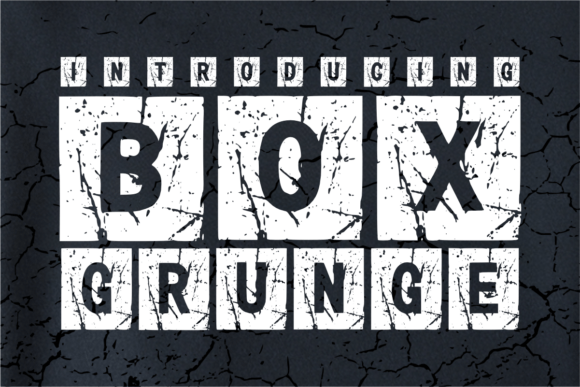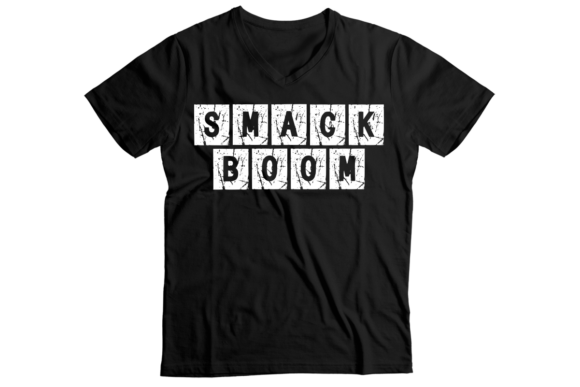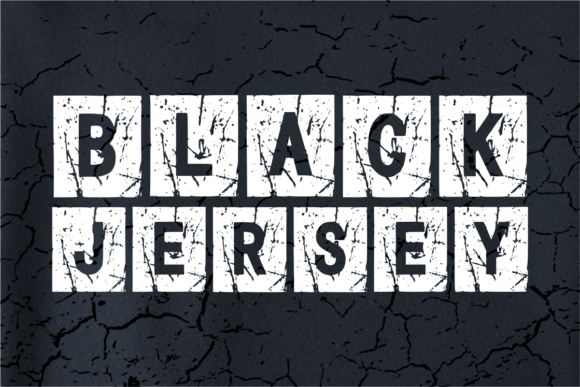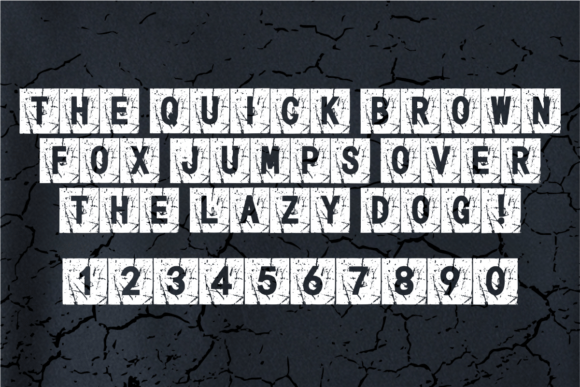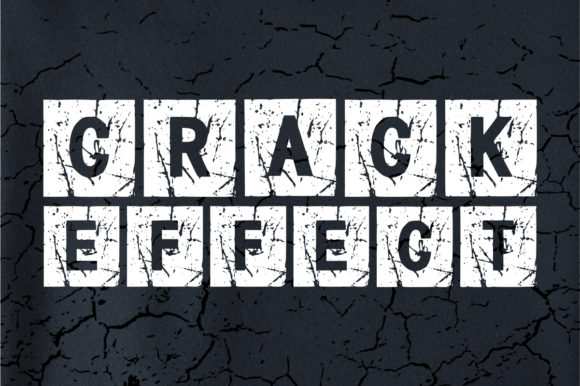
Have you ever stared at a blank canvas, wondering how to bring your vision to life? The blank page, the empty design space – it’s a familiar feeling for many creatives. But what if you had the perfect tool to help spark your imagination? Enter the Box Grunge Font, a game-changing addition to any font library.
This innovative font is designed to add a touch of rugged charm to any project. Whether you’re creating a logo, designing a greeting card, or crafting a unique t-shirt, the Box Grunge Font has the power to elevate your work. Its versatility and edgy style make it a valuable asset for designers, allowing you to experiment with new ideas and push the boundaries of your creativity.
Key Features of Box Grunge Font
- Font Family: Box Grunge Font is a distressed, grunge-style font family, ideal for creating a vintage or worn look in designs.
- Unique Characteristics: The font’s distressed texture and grunge effects create a unique, eye-catching look that sets it apart from other fonts.
Box Grunge Font Review
I recently had the chance to work with the Box Grunge Font, and I’m excited to share my honest review with you.
- ✨ The distressed texture effect is a great addition, adding a layer of depth and character to the font.
- ✨ The bold, chunky style is perfect for headings and titles, making it easy to grab the reader’s attention.
- ✨ The font is highly customizable, allowing you to adjust the texture and color to fit your design needs.
- ⚠️ The font can be a bit too loud and overwhelming, especially when used in large blocks of text.
- ⚠️ Some characters, like the ‘g’ and ‘p’, can be difficult to read due to the texture and design.
- ⚠️ The font may not be suitable for projects that require a clean, minimalist look.
The Box Grunge Font is a great choice for designers who want to add some edge and personality to their projects. While it has its limitations, the font’s unique texture and style make it a great addition to any design arsenal. With careful use and customization, the Box Grunge Font can help take your designs to the next level.
For a more authentic look, use the font in conjunction with distressed textures and colors.
For a more realistic look, experiment with layer blending modes and texture overlays.
The Box Grunge Font is ideal for:
Music festival posters and flyers
Distressed or vintage-themed designs
Alternative or grunge-inspired art
Creating a rugged or edgy look in your designs
Alternatives to Box Grunge Font
Rough Rust
Rough Rust is a distressed font that adds a rugged feel to designs. It’s ideal for use in branding, packaging, and advertising materials where a rough, industrial look is desired. Compared to Box Grunge Font, Rough Rust has a more rugged texture and a wider range of characters, making it suitable for longer text passages.
Griffy
Griffy is a grungy font with a more subtle texture than Box Grunge Font. It’s suitable for use in designs where a hint of grunge is needed without overpowering the rest of the content. Griffy is ideal for use in editorial design, social media graphics, and marketing materials.
Distressed Text
Distressed Text is a versatile font that can be used in a variety of design contexts. It has a more subtle texture than Box Grunge Font and is suitable for use in short text passages, such as headings and titles. Compared to Box Grunge Font, Distressed Text has a more polished look and is easier to read.